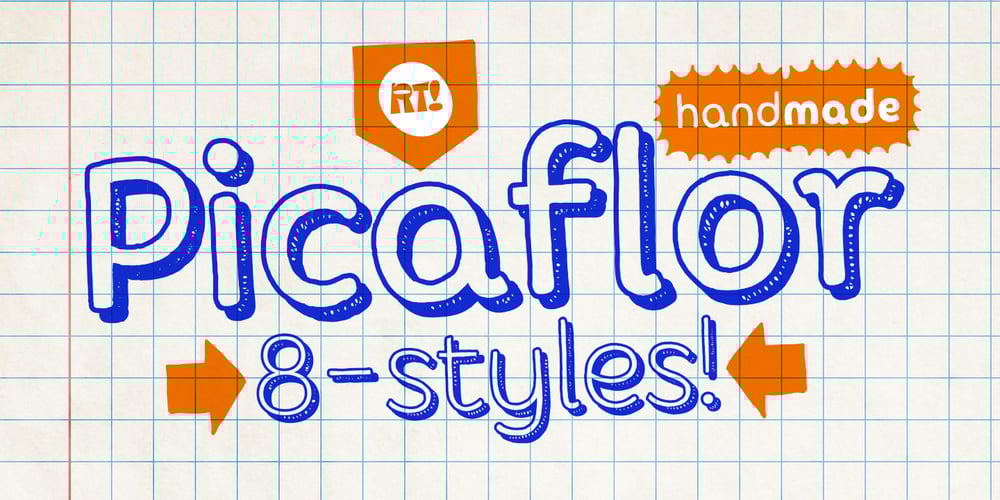
Picaflor Handmade Font Family was designed by Rodrigo Araya Salas, Bruno Jara Ahumada and published by RodrigoTypo. Picaflor Handmade contains 8 styles and family package options. Picaflor Handmade is a fun handmade version with 8 styles and weights, it contains Light Regular and Bold and its 3D versions plus dingbats, perfect for fun or informal titles!